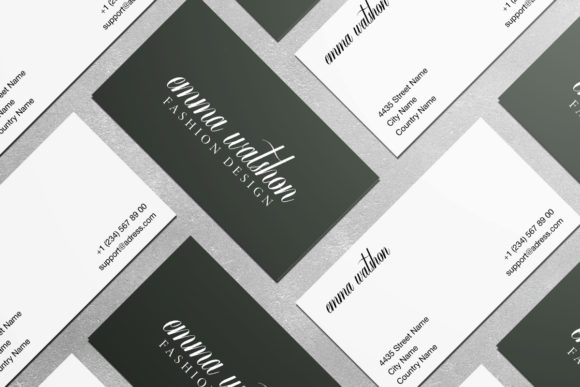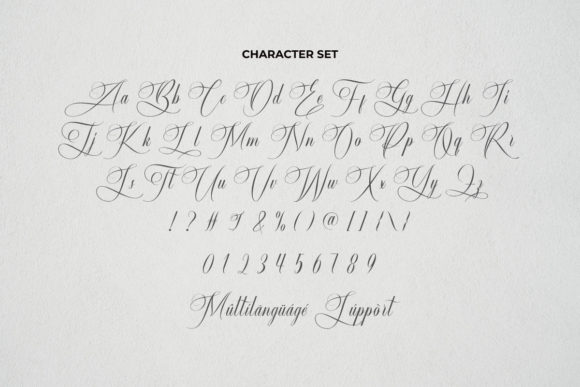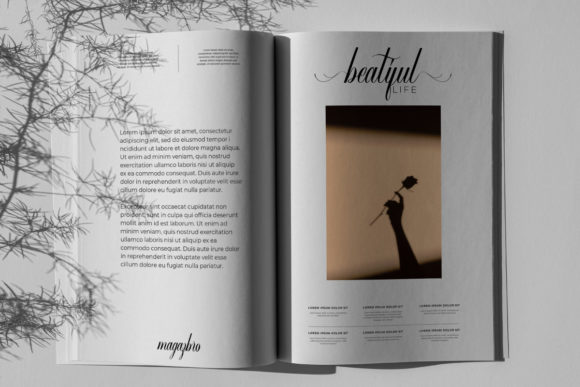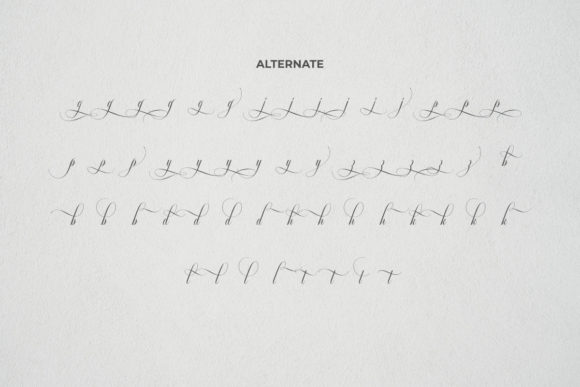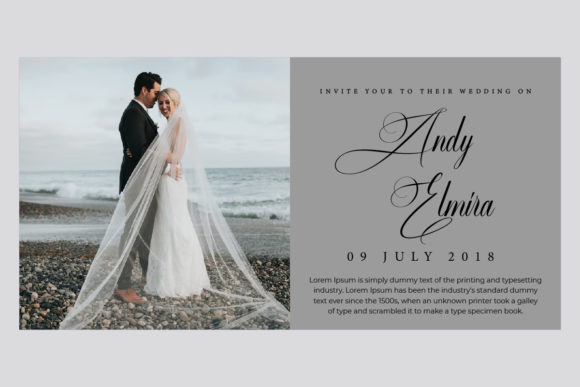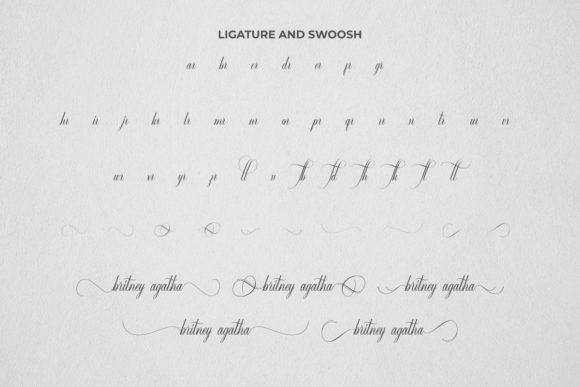
Unlocking Elegance with the Britney Agatha Font
There’s nothing quite like the thrill of staring at a blank canvas, waiting for the perfect idea to strike. For designers, this moment is a daily occurrence, and it’s what drives us to push the boundaries of creativity. But sometimes, all it takes is the right tool to bring our vision to life. Enter the Britney Agatha Font, a luxurious calligraphic font that’s about to become your new best friend.
This stunning font is perfect for fashion labels, photography, weddings, products, signage, and more. Its slim design makes it a versatile choice for any project, and the fact that it’s PUA encoded means you can access all of its glyphs and swashes with ease. Whether you’re a seasoned pro or just starting out, the Britney Agatha Font is a valuable addition to your design toolkit.
- Unique Characteristics: Britney Agatha features a unique blend of vintage and modern elements, with intricate details and ornaments, making it ideal for luxury and high-end designs
Britney Agatha Font Review
Overall, I think Britney Agatha Font is a solid choice for a elegant, feminine look. ✨ The font’s intricate details and subtle flourishes give it a classic feel that’s hard to resist. The font’s versatility shines through in its wide range of applications, from headings to body text.
- ✨ Elegant and refined design: Britney Agatha Font exudes a sense of sophistication and poise, making it perfect for high-end branding or luxury products.
- ✨ Versatile: The font’s adaptability to various font sizes and styles makes it a great choice for a wide range of projects.
- ✨ Elegant italics: The font’s italic styles are beautifully crafted, adding a touch of whimsy and romance to any text.
- ⚠️ Limited language support: Unfortunately, Britney Agatha Font may not support all languages, which could be a limitation for international projects.
- ⚠️ May not be ideal for bold or dramatic text: While the font is beautiful, it may not be the best choice for text that requires a bold or dramatic feel.
Overall, I think Britney Agatha Font is a lovely choice for designers looking for a elegant, refined look. While it may have some limitations, its versatility and classic design make it a solid addition to any font collection.
The Britney Agatha Font is ideal for creating elegant and sophisticated designs, such as:
- Formal event promotions
- High-end branding and marketing materials